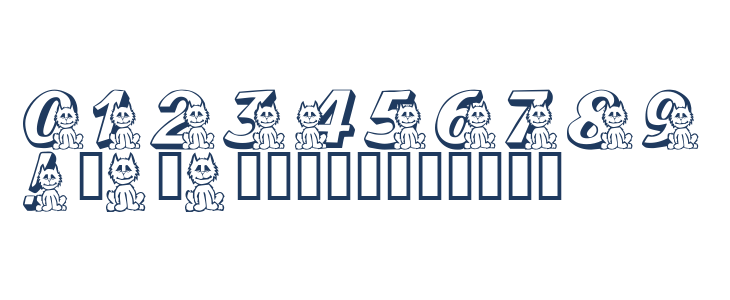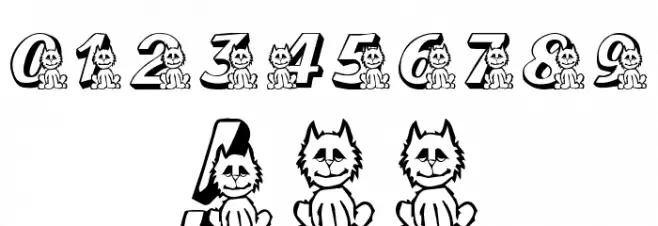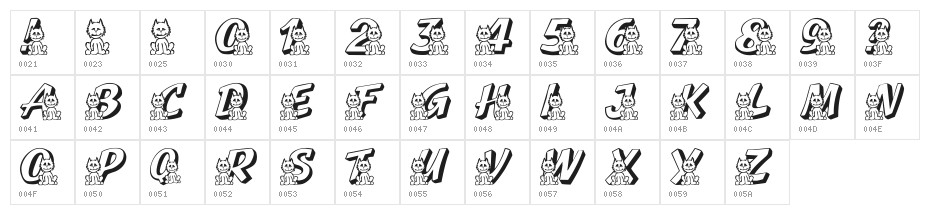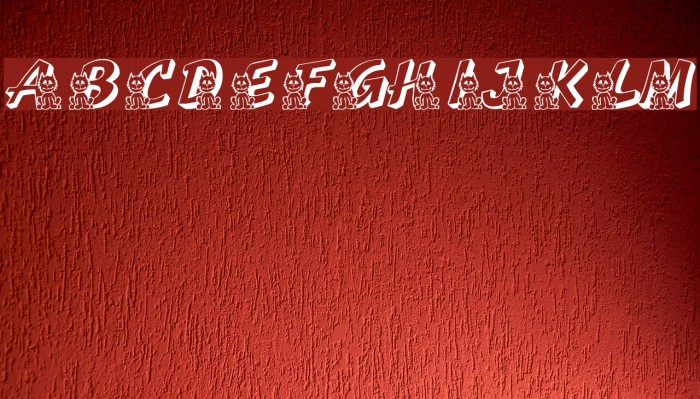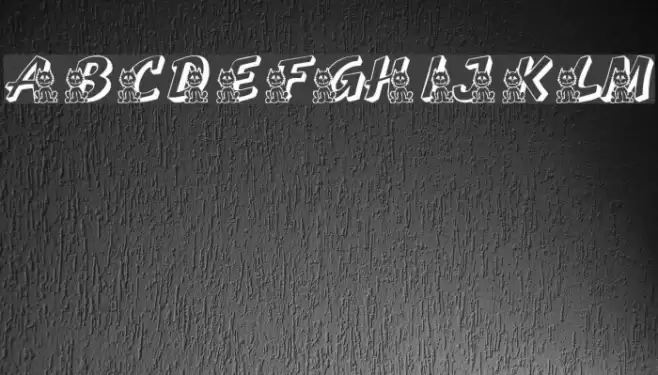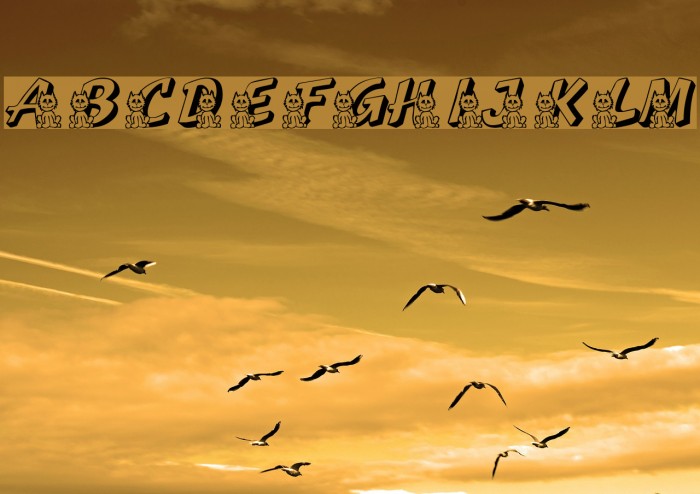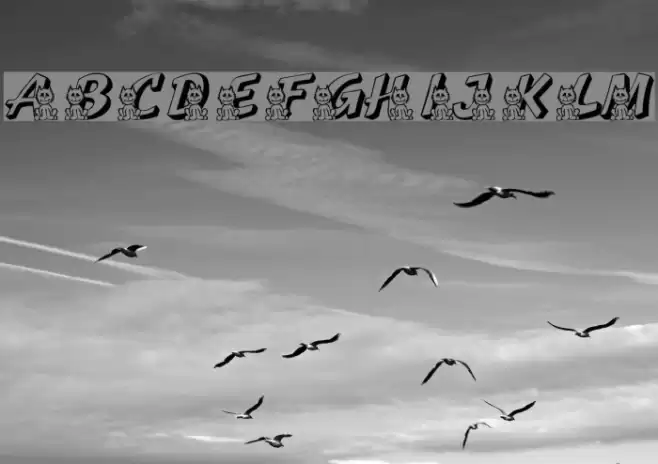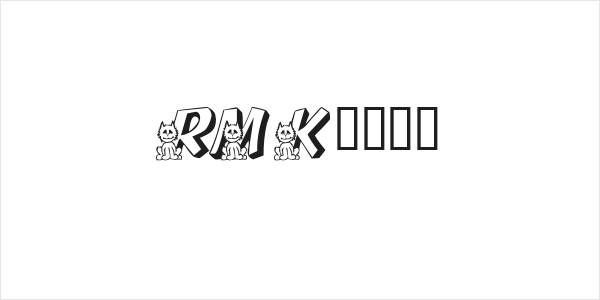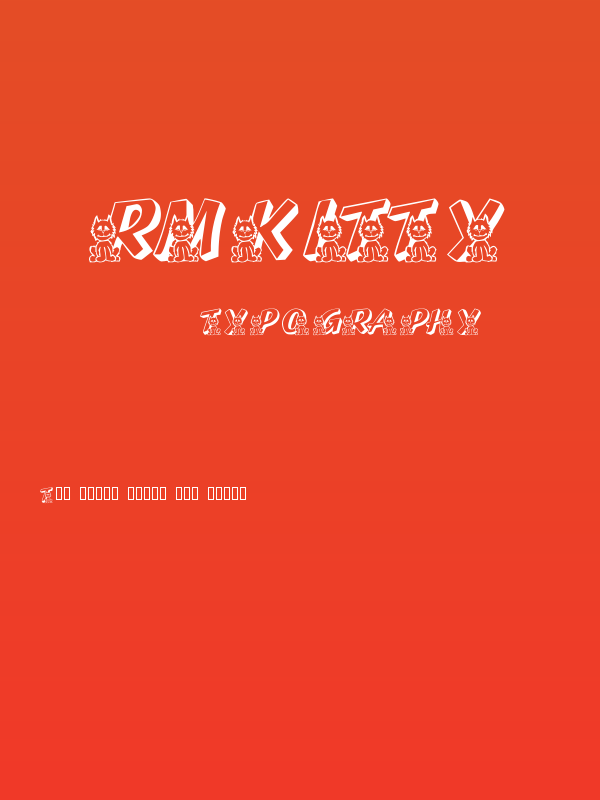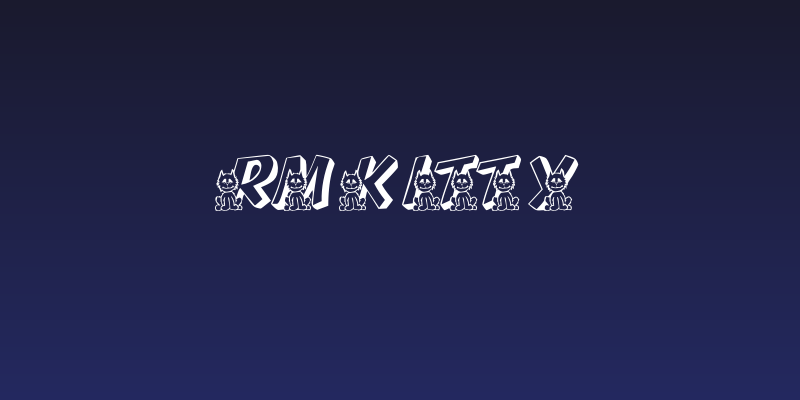
RMKitty Font
RMKitty Description
This playful and whimsical font features bold, three-dimensional letters accompanied by charming cat illustrations. Each character is designed with a sense of fun, making it ideal for projects that require a lighthearted and creative touch. The letters are bold and slightly italicized, giving them a dynamic and lively appearance. The inclusion of the cat graphic adds a unique and decorative element, making this font stand out for specific thematic uses. The numbers and special characters are also designed with the same playful style, ensuring consistency across all text elements.
| Proposed Projects | Ideal for children's books, playful branding, pet-related products, and creative posters. |